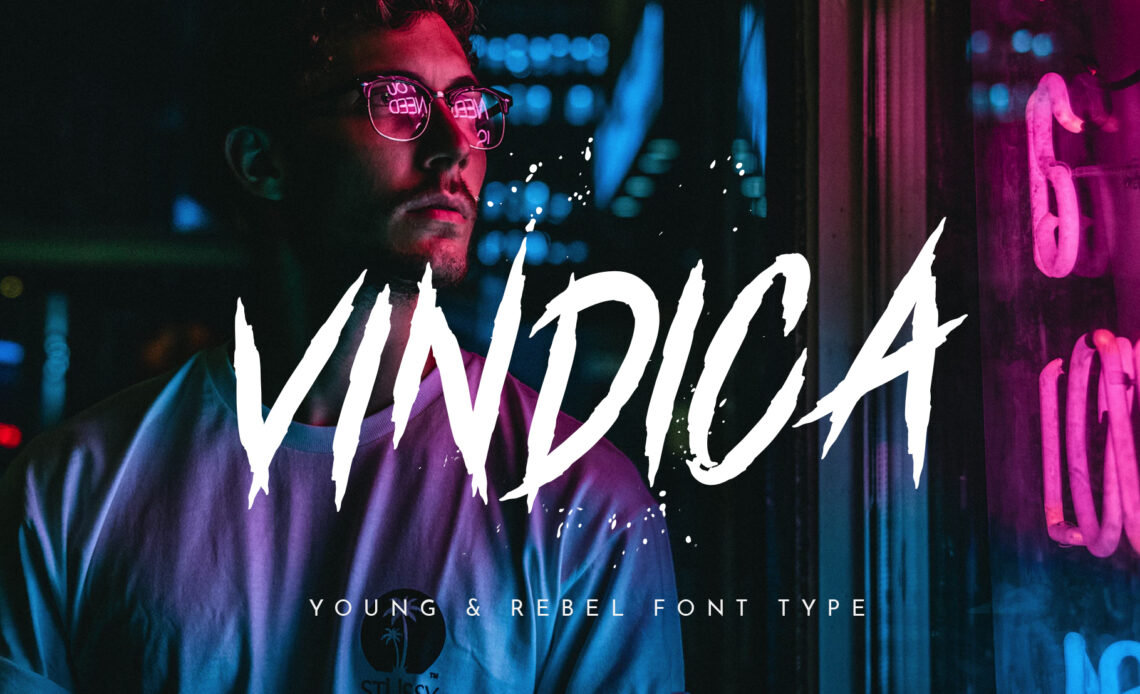
Journey into the world of Vindica, a display font that radiates boldness and avant-garde aesthetics. Its captivating strokes dance across your designs, injecting a surge of energy and personality that demands attention. Crafted by the visionary mind of rubirubiko, Vindica is a masterpiece that defies convention, pushing the boundaries of creativity and expression.
With its dynamic curves and sharp edges, Vindica possesses an undeniable charisma that magnetizes your audience. This font is a true chameleon, effortlessly adapting to a myriad of design styles, from the refreshingly minimalist to the audaciously experimental. Its versatility empowers you to elevate your projects, transforming ordinary concepts into captivating visual spectacles.
Unleash your imagination and let Vindica's rebellious spirit ignite your designs. Its larger-than-life presence commands attention, making it the perfect choice for headlines, posters, logos, and any project craving a touch of nonconformist flair. Vindica's inherent motion energizes your compositions, creating a visual symphony that captivates and mesmerizes.
In a world saturated with conformity, Vindica emerges as a beacon of individuality. It empowers you to break free from the mundane, to embrace your unique creative vision, and to leave an indelible mark on the world. With Vindica by your side, you possess the power to ignite imaginations, provoke thought, and inspire action.
Embrace the Vindica experience and witness the transformation of your designs. Let its bold strokes and edgy character infuse your projects with a fresh surge of life, propelling them to new heights of brilliance. Join the ranks of those who dare to be different, who embrace the power of Vindica to redefine the boundaries of visual communication.